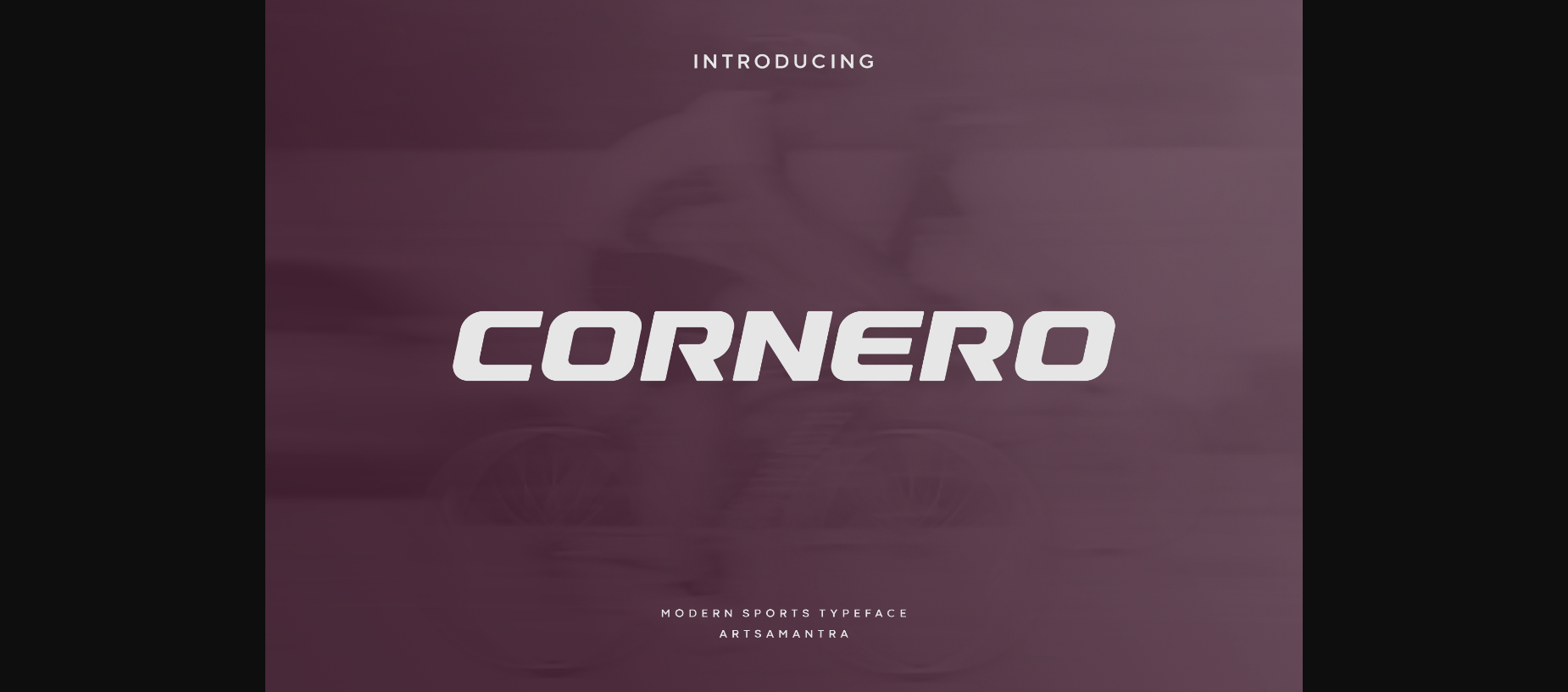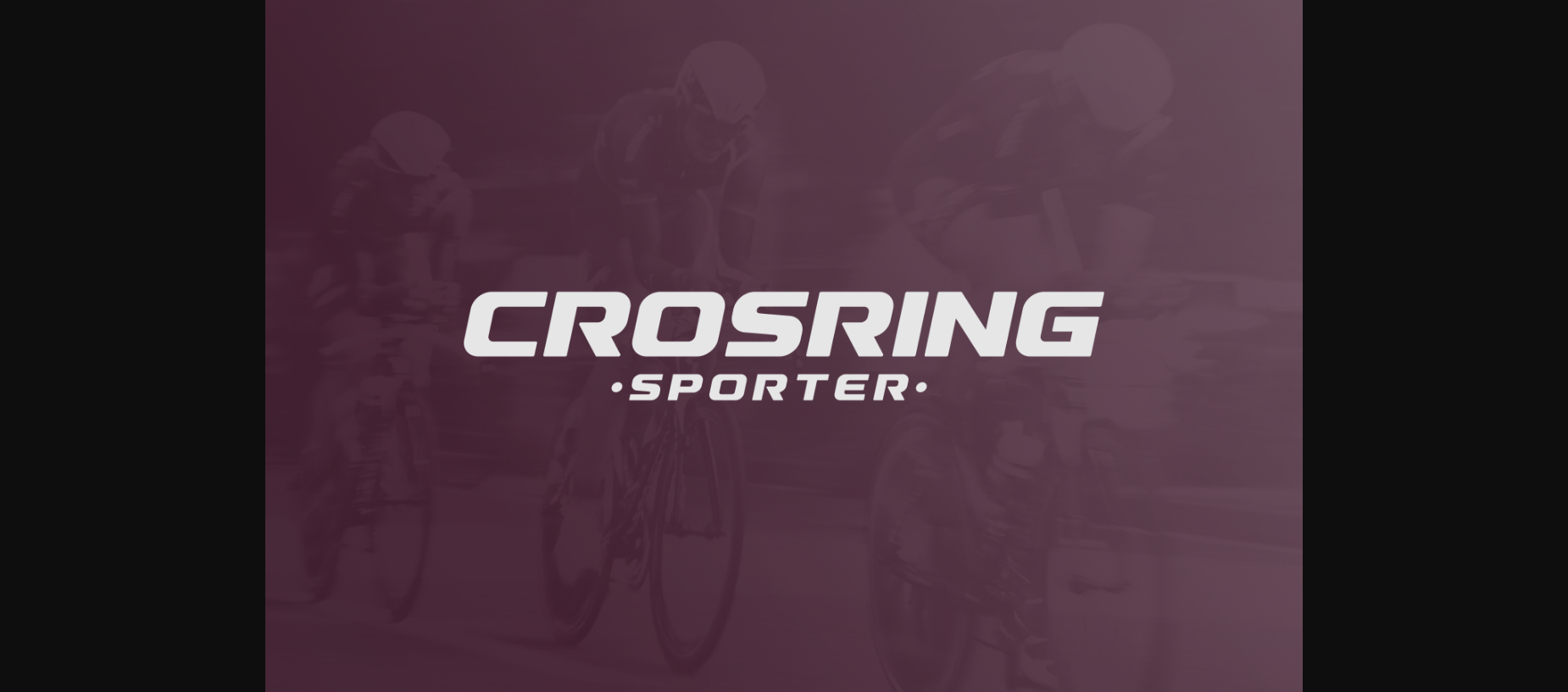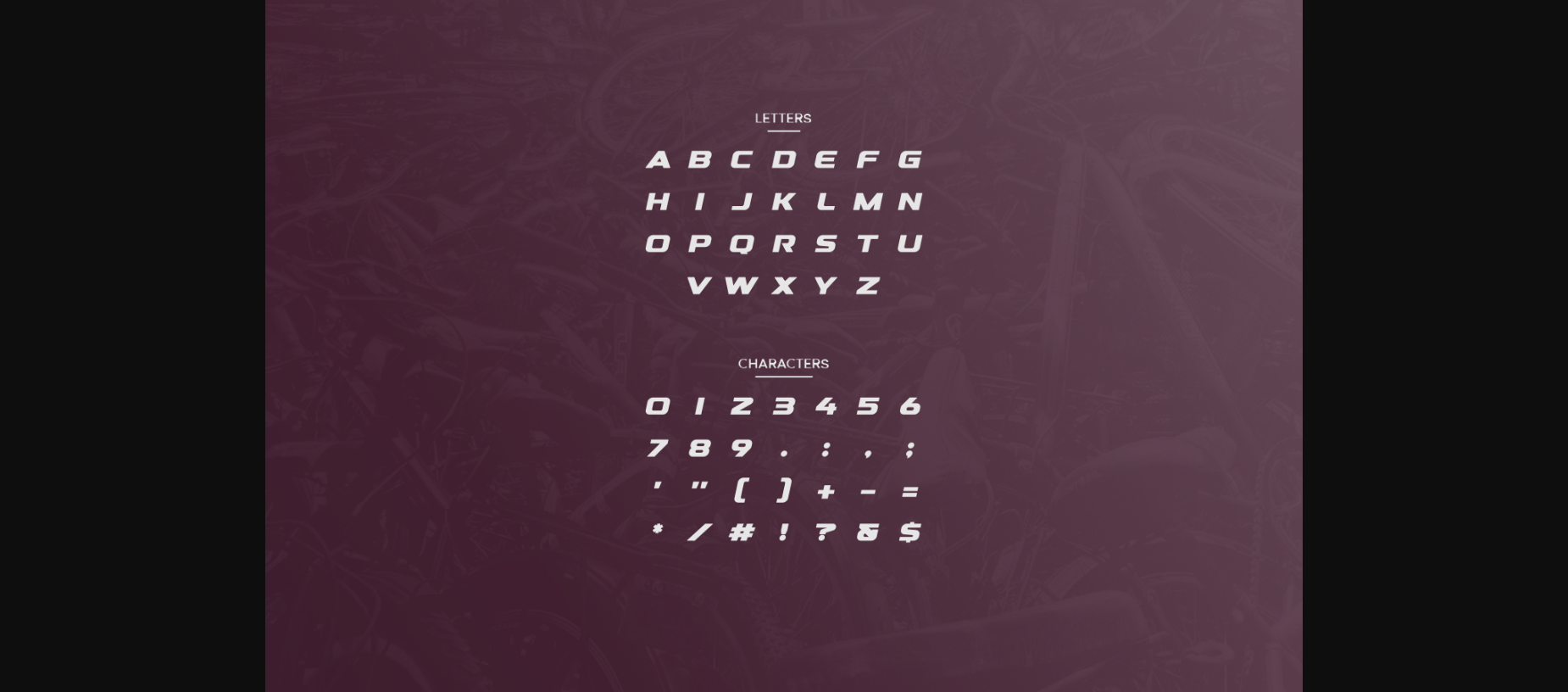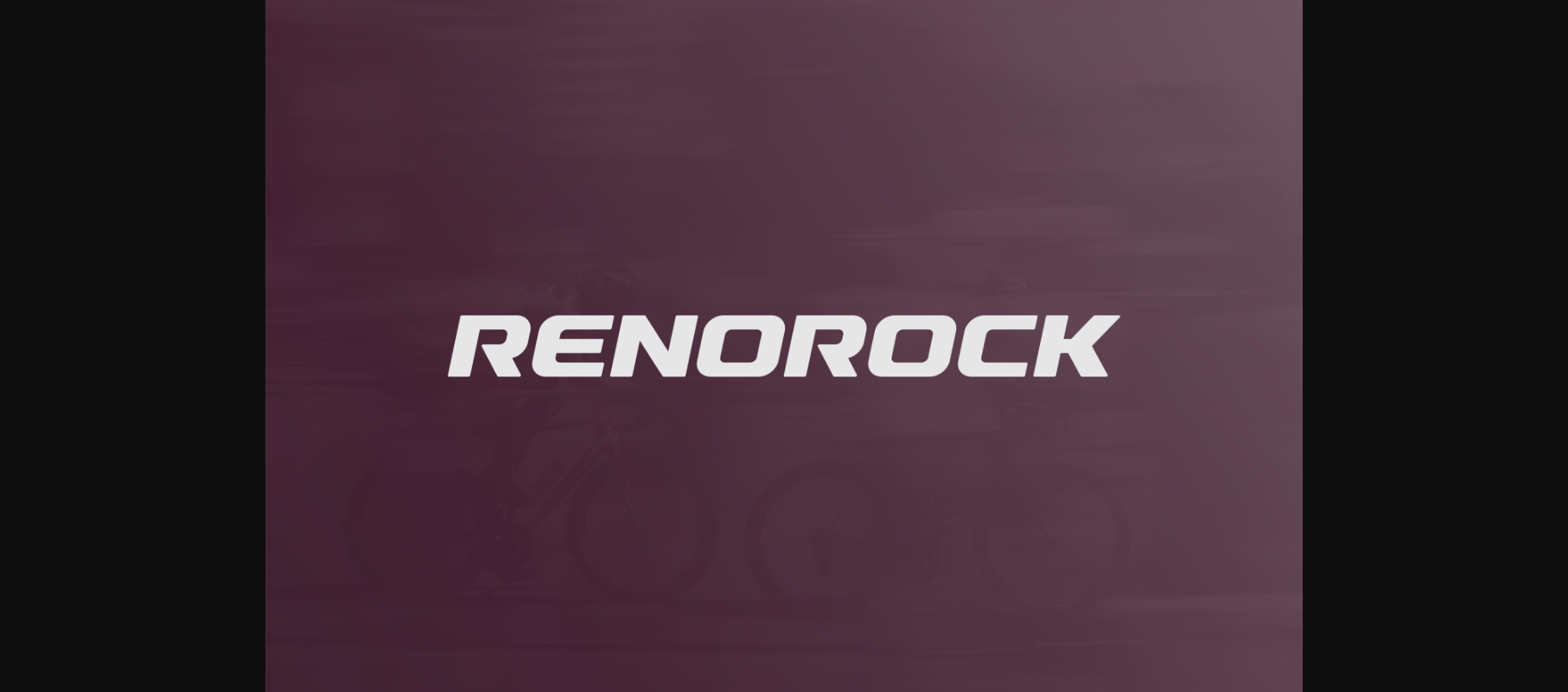
Cornero Font
About Cornero Font
Cornero is a modern display font built specifically for sports branding, headline, and more prominent typography needs. Cornero comes with a new and fresh all-caps style, it will make your design more memorable, it’s perfect for adding this font to sports, tech, action and future themes. Cornero was created for bold action style and a modern feel, so enjoy creating any project that will showcase your main ideas.